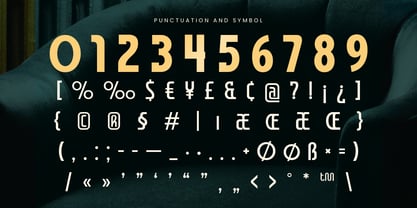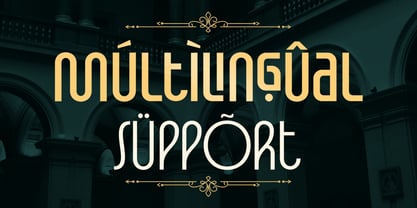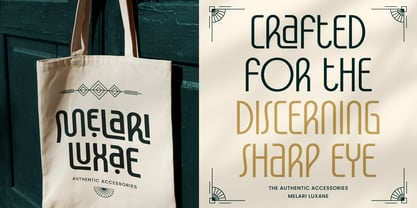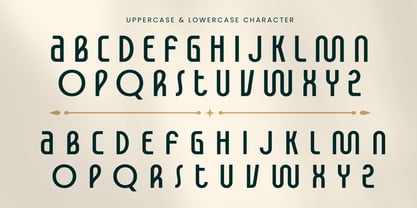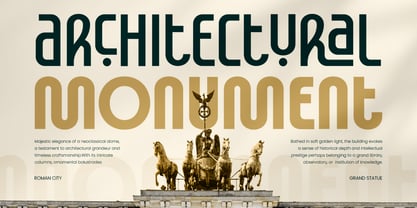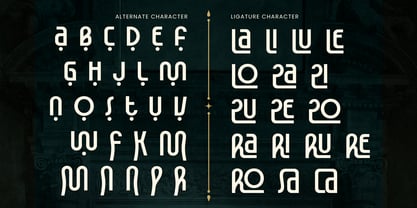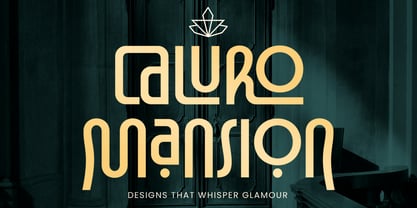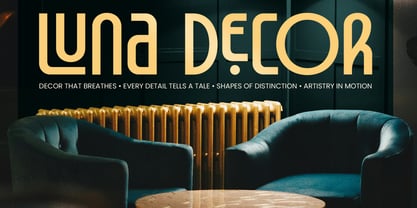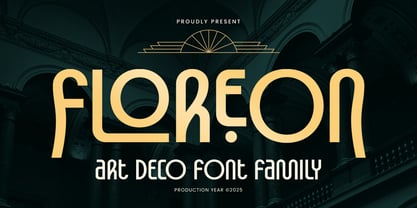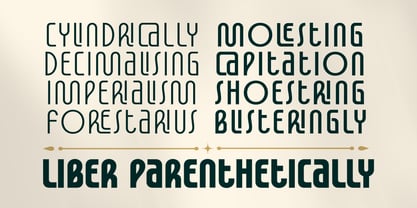
Floreon
von Sensatype Studio
Die Schriftfamilie Floreon wurde von Zamroni Hamzah entworfen und von Sensatype Studio veröffentlicht. Floreon enthält 3 Stile und Familienpaketoptionen. Mehr über diese Familie
FLOREON is a modern art deco font family inspired by the timeless elegance and geometric precision of 1920s design. Combining vintage charm with contemporary refinement, this typeface family brings sophistication and balance to every project — from high-end branding to editorial layouts.
With multiple weights and stylish details, FLOREON offers flexibility for both display and text use. Its bold, structured letterforms and clean Art Deco influence make it perfect for fashion labels, luxury packaging, invitations, and magazine titles.
Whether you’re designing for print or digital media, FLOREON delivers a polished, elegant, and distinctive appearance. It captures the glamour of classic Art Deco design while maintaining a minimalist modern tone — ideal for creative professionals and premium brands.
FLOREON – Art Deco Font Family Features
• Complete Art Deco–inspired font family with multiple weights
• Perfect for logos, branding, packaging, and editorials
• Elegant geometric letterforms with vintage sophistication
• Ready with 3 Weights: Light, Regular and Bold Version
• Uppercase, lowercase, numerals, and punctuation included
• OpenType features for advanced design flexibility
Bring timeless sophistication to your designs with FLOREON – the ultimate Art Deco font family for luxury, fashion, and modern branding.
Designer: Zamroni Hamzah
Foundry: Sensatype Studio